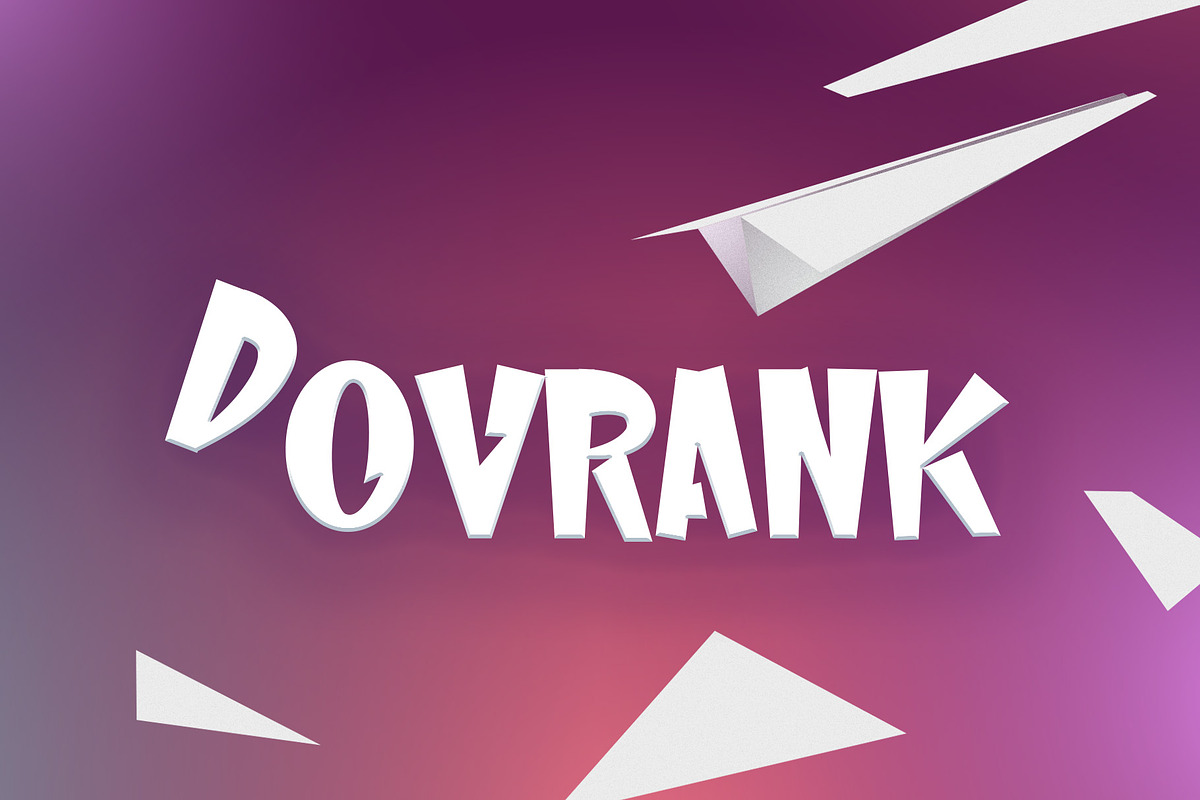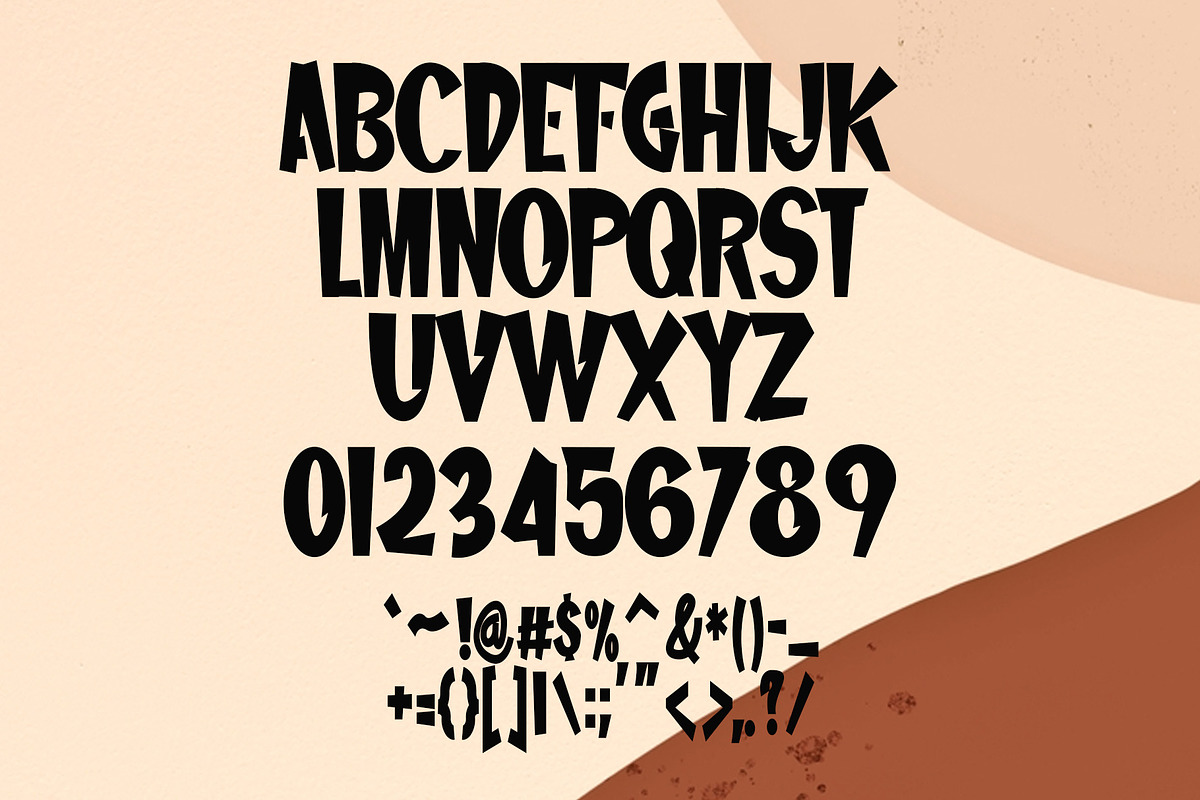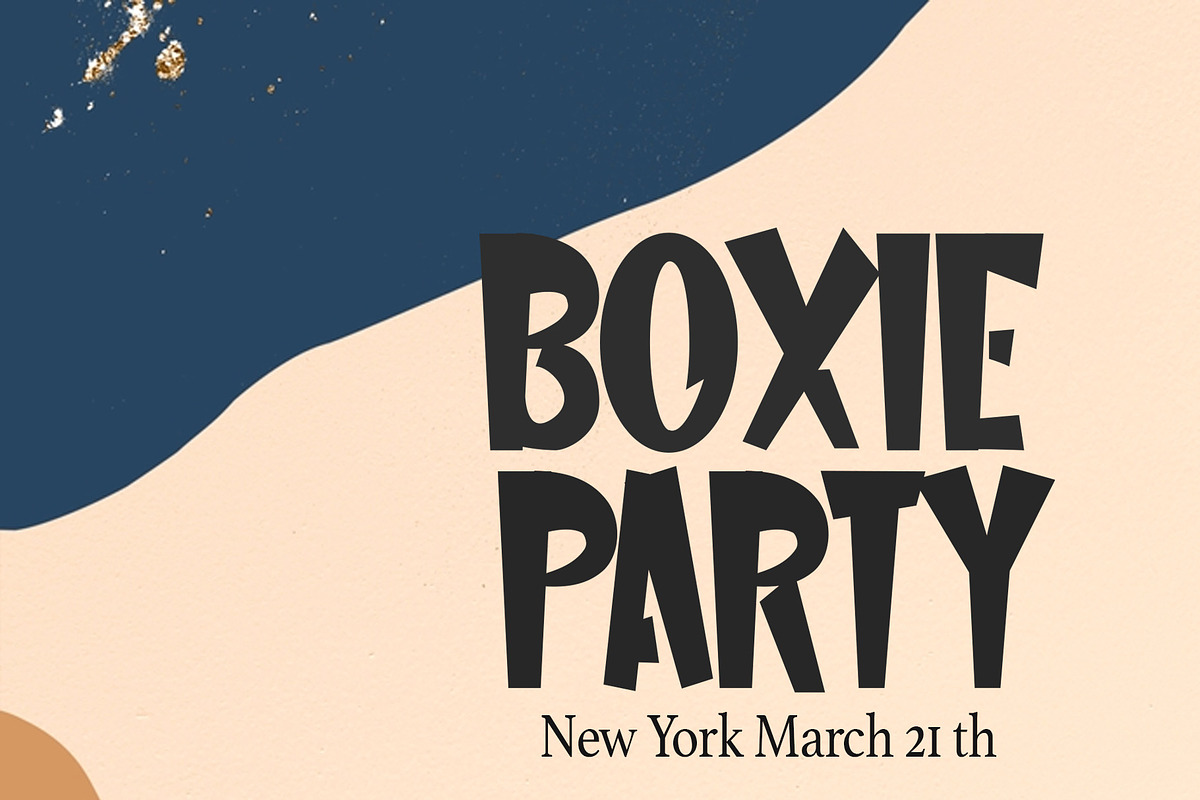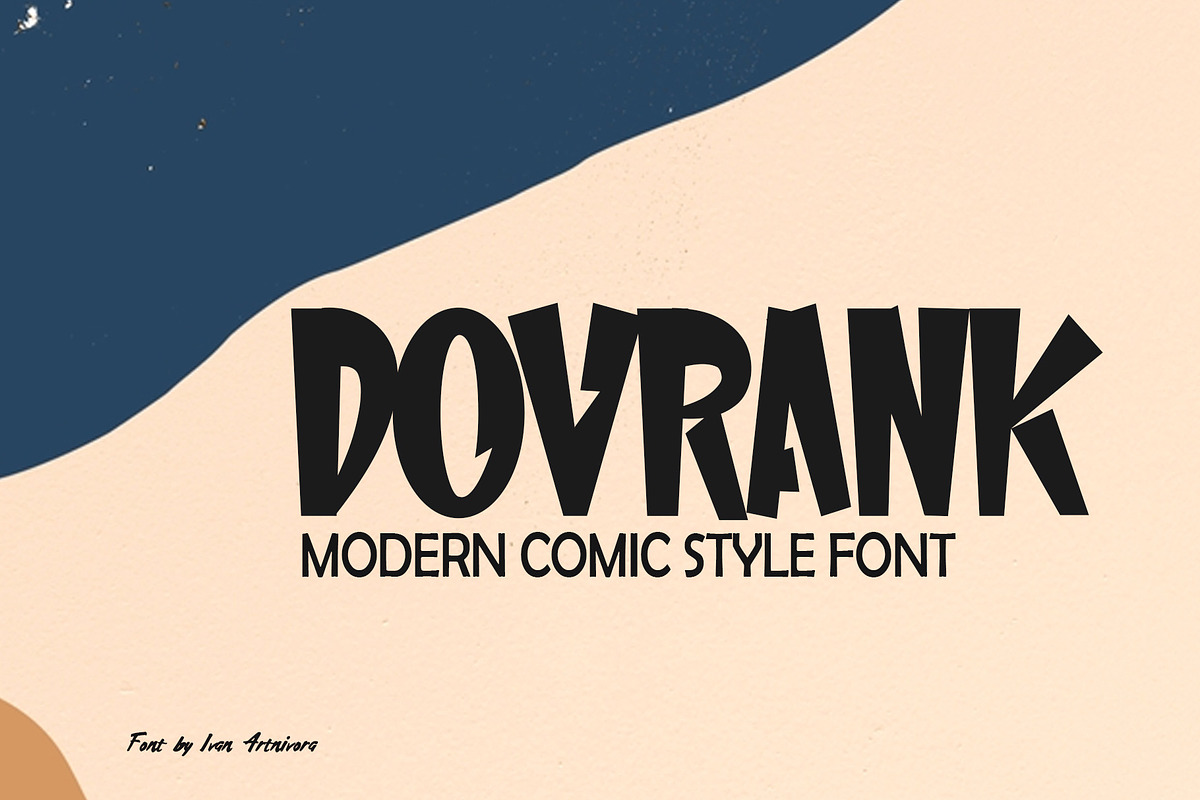
Dovrank - Modern Comic Font
Bring a touch of simplicity and elegance to your designs with Dovrank, a unique and minimalist font, this font is perfect for a variety of design projects. Dovrank is both versatile and user-friendly.
Use Dovrank to create stylish logos, modern headlines, and elegant titles. Its minimalist design makes it a versatile choice for any project.
- Minimalist font with a unique twist
- Includes upper case letters, numerals, and punctuation
- Make a statement with the unique and stylish Dovrank font.